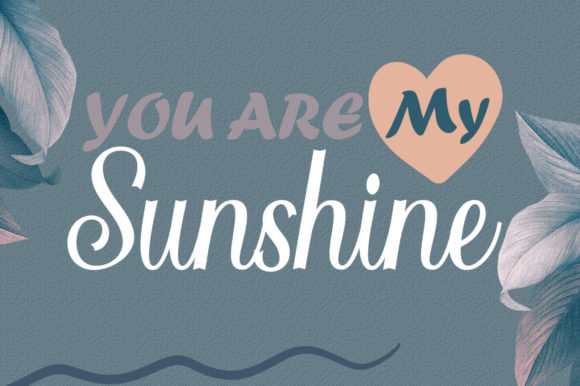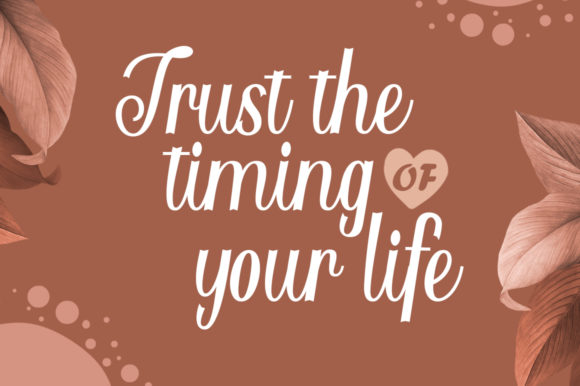
About Clara Bonitta Font
Clara Bonitta is an incredibly elegant and timeless handwritten font. It has well balanced characters and fits a wide range of designs due to its versatile style. This font is PUA encoded which means you can access all of the glyphs and swashes with ease! It features a varying baseline, smooth lines, gorgeous glyphs and stunning alternates.